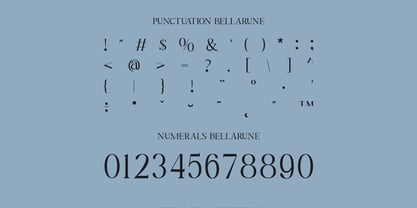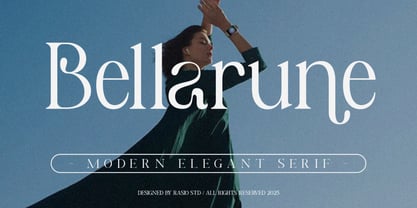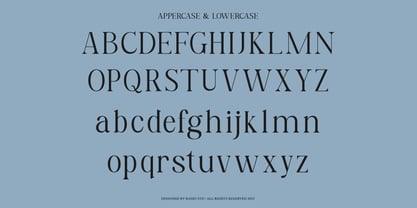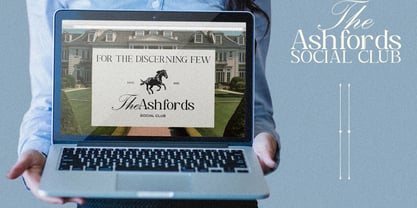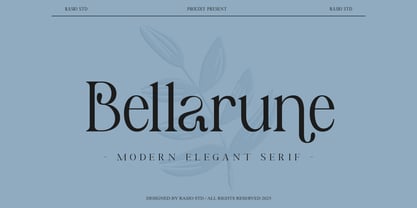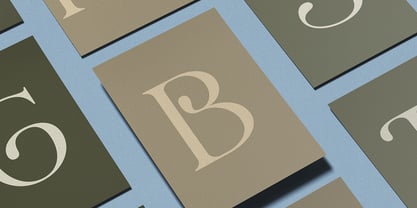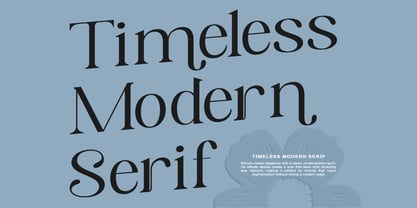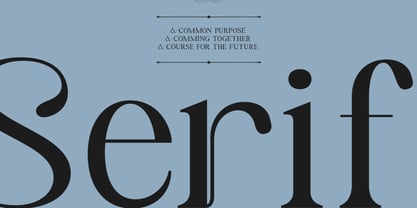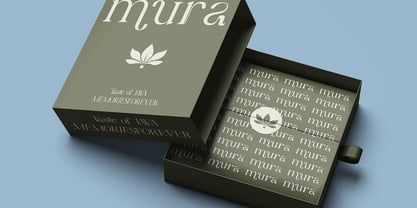
Bellarune
por Rasio Studio
La familia tipográfica Bellarune fue diseñada por Fajar Indra y publicada por Rasio Studio. Bellarune contiene 1 estilos. Más información sobre esta familia
Bellarune is a modern elegant serif typeface designed to blend timeless beauty with contemporary clarity. It features high-contrast strokes, refined curves, and graceful proportions that bring a luxurious yet minimal feel to any design project. The font includes full uppercase and lowercase letters, numerals, and essential punctuation. Its balanced structure makes it perfect for display headlines, branding systems, editorial layouts, and refined visual storytelling. Bellarune is ideal for designers seeking a modern serif with graceful elegance. It works beautifully in branding identities, fashion editorials, magazine layouts, luxury product packaging, wedding stationery, and refined digital or print presentations.
Diseñadores: Fajar Indra
Fundición actual: Rasio Studio